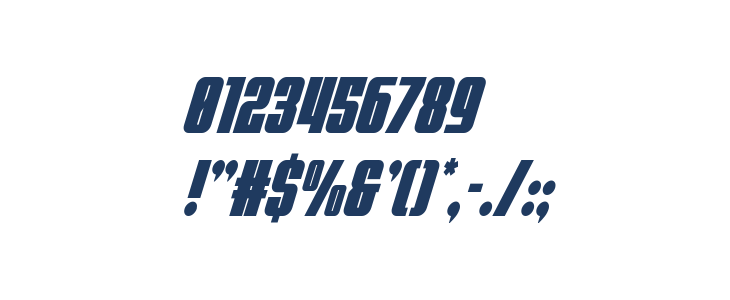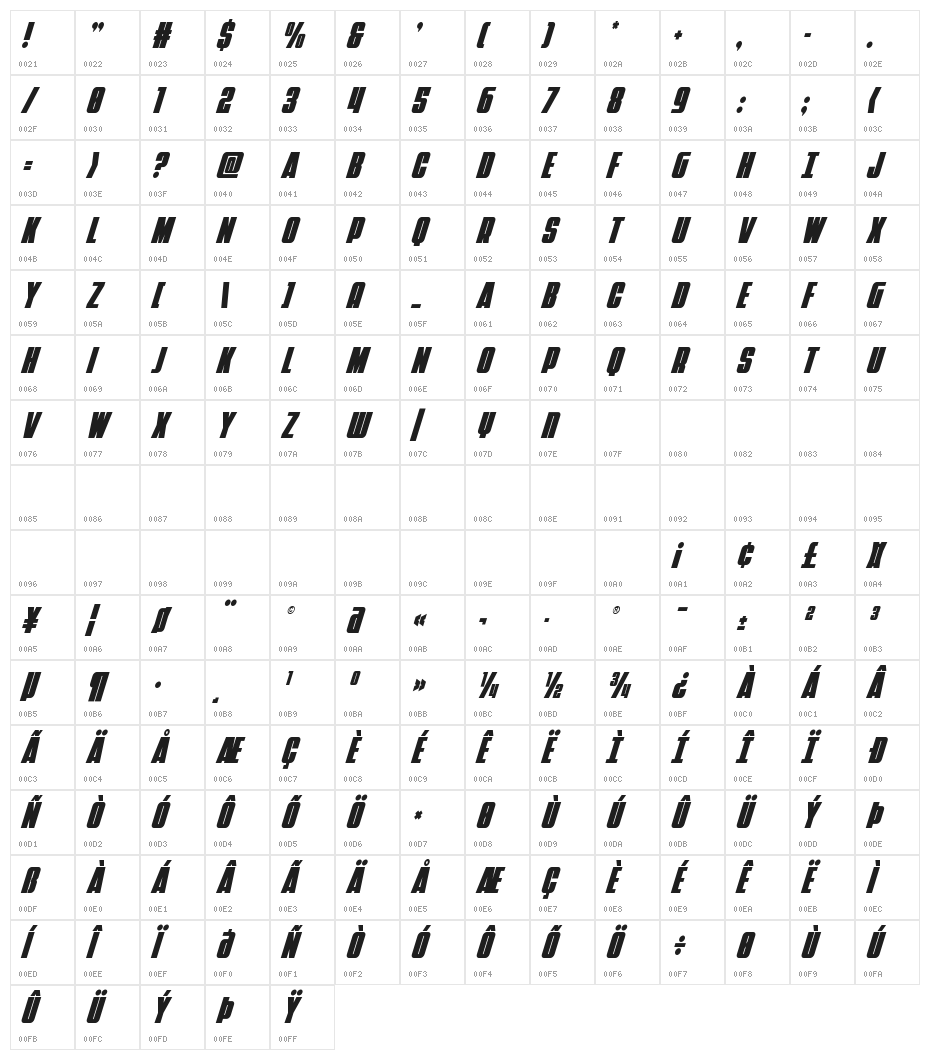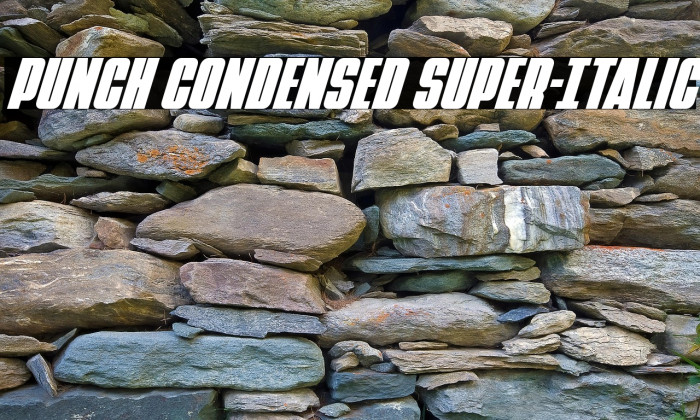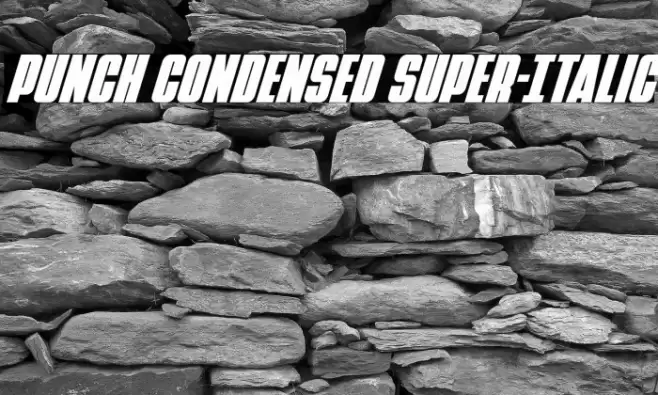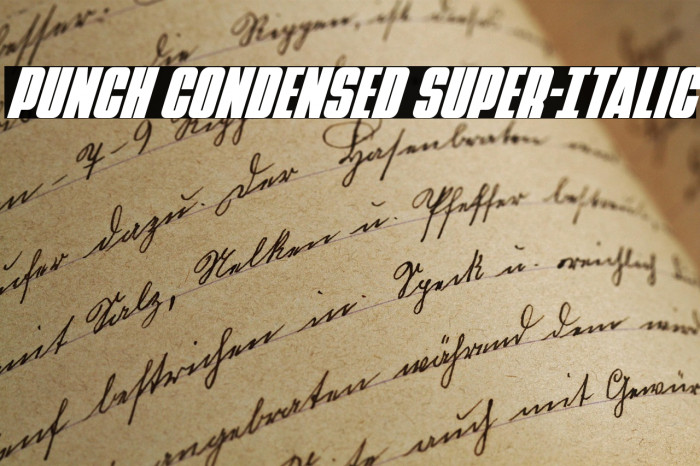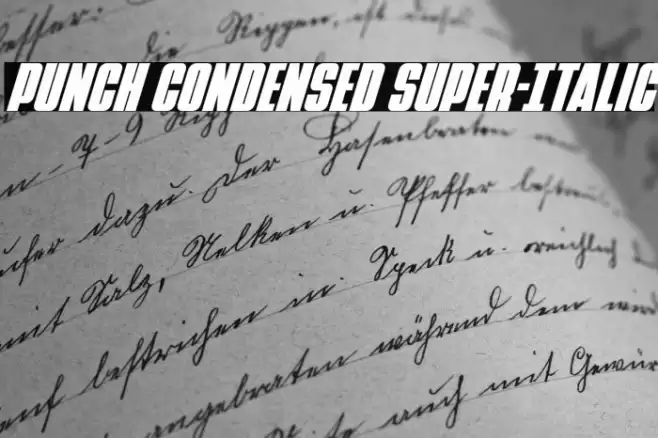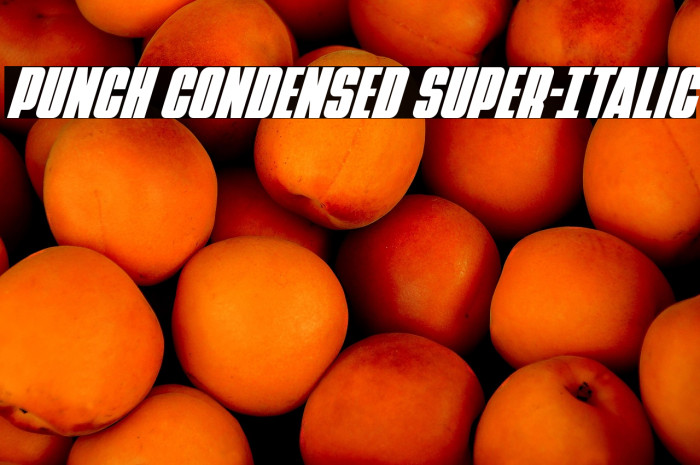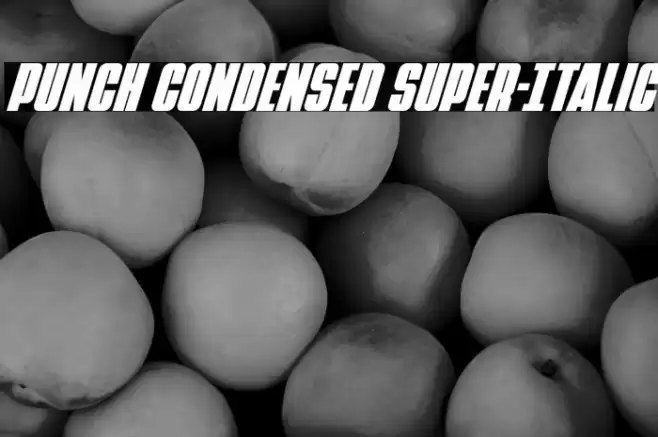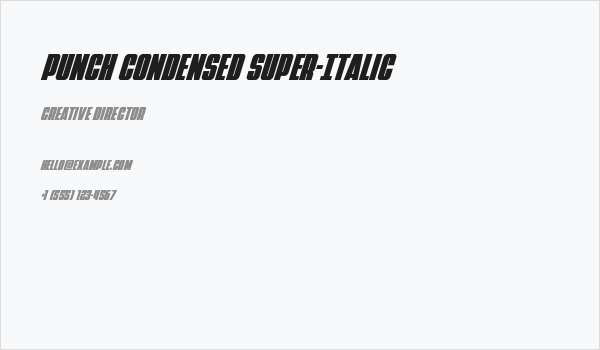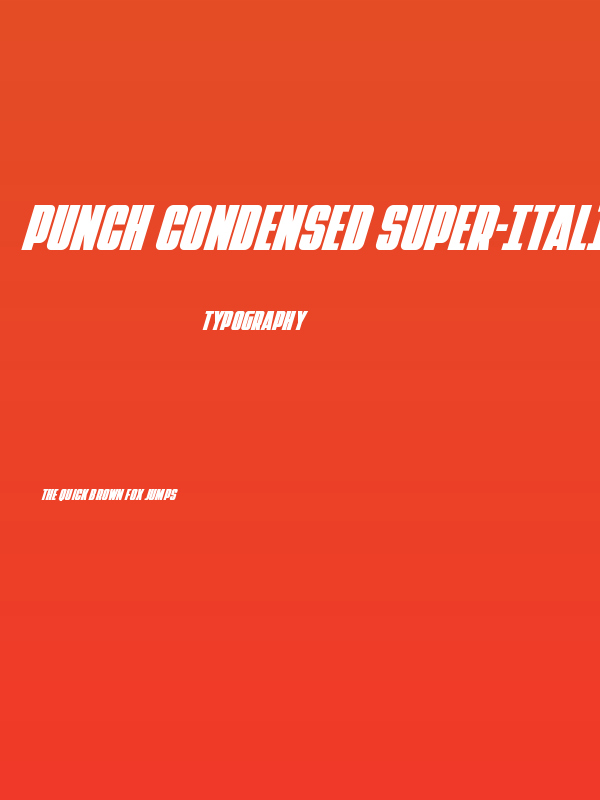
Punch Condensed Super-Italic Font
Punch Condensed Super-Italic Description
This font features a bold and dynamic style with a strong italic slant, giving it a sense of motion and urgency. The characters are condensed, making them ideal for space-saving designs while maintaining a powerful presence. The strokes are thick and consistent, providing a high contrast that enhances readability even at smaller sizes. The overall design is modern and impactful, suitable for making statements in headlines or logos. The special characters maintain the same boldness and style, ensuring consistency across different uses.
| Proposed Projects | Ideal for sports branding, dynamic posters, impactful headlines, and modern logo designs. |